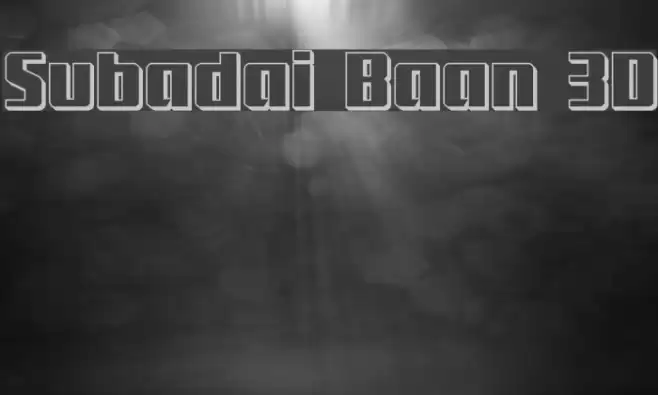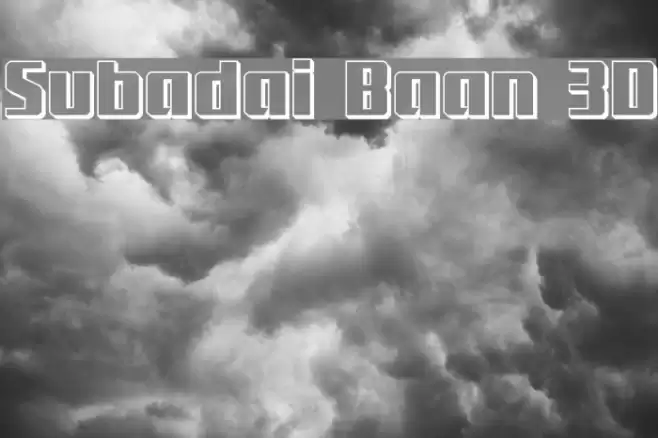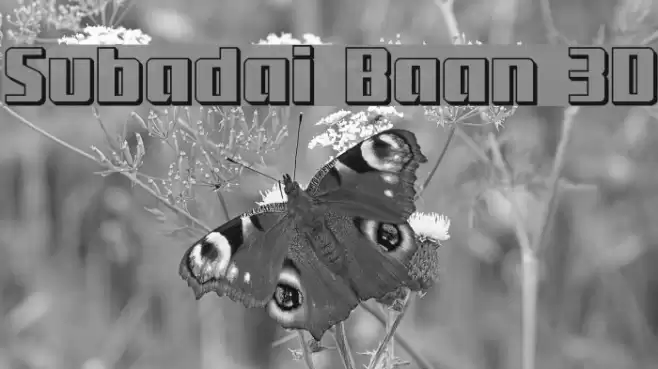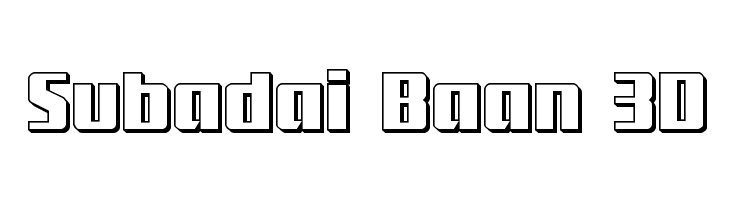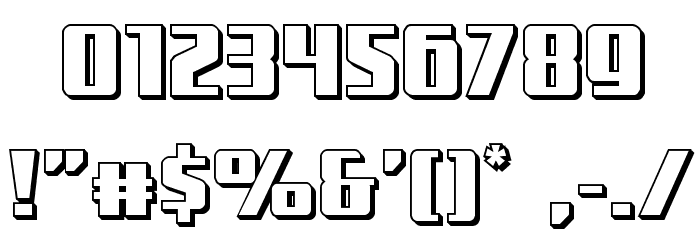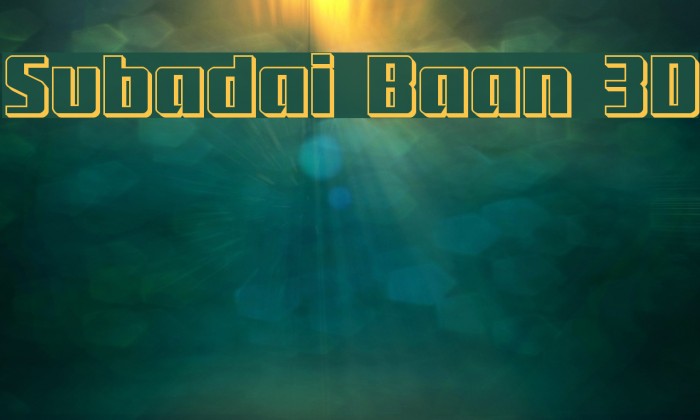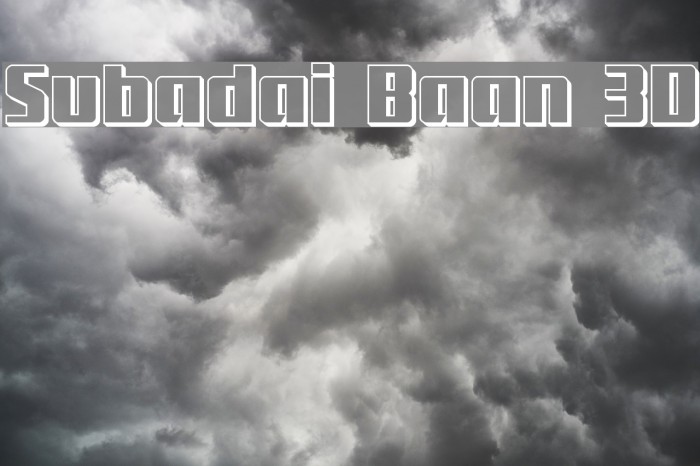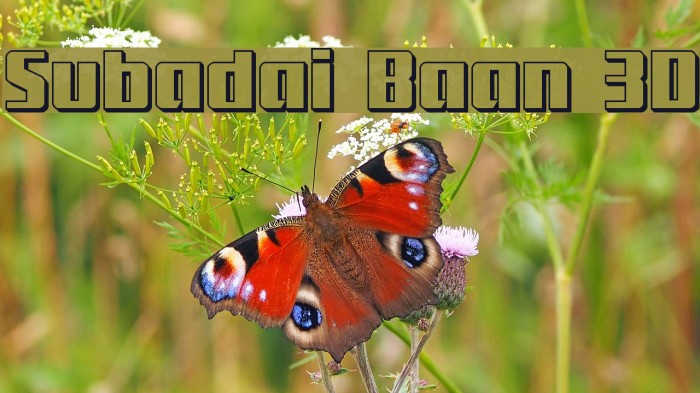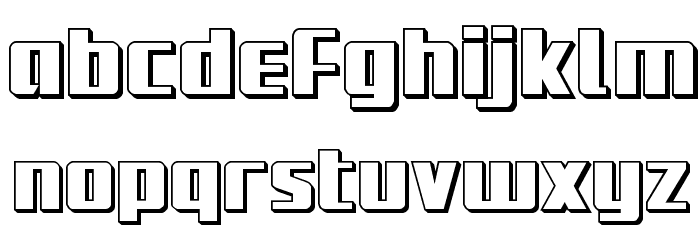
Subadai Baan 3D Font
Subadai Baan 3D Description
This font features a bold, three-dimensional design with a strong geometric structure. Each character is outlined, creating a shadow effect that gives the font a distinct depth and presence. The uppercase and lowercase letters maintain a consistent width, contributing to a uniform appearance. The numerals and special characters are designed with the same bold outline, ensuring visual harmony across all elements. The font's style is modern and impactful, making it suitable for projects that require a strong visual statement. Its unique 3D effect is ideal for creating eye-catching headlines and logos.
A bold, 3D geometric font with strong outlines and a modern style from Uncategorized fonts.
- Proposed Projects: Ideal for branding, logos, posters, and any design needing a bold, modern statement.